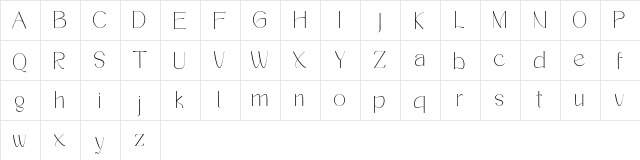
Bangfel Regular
| Designer | Muksal Craeative. 2020 |
Design Context for Bangfel Typeface
Bangfel is a composed and adaptable typeface that performs quietly and consistently across a wide range of design contexts.